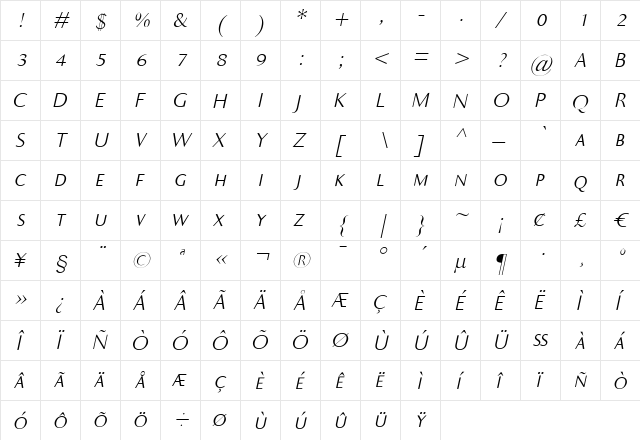
Ela Sans Light Caps Italic
Italic · Gert Wiescher, Wiescher-Design, Munich, Germany, www.wiescher-design.de  ·
Design Context for Ela Sans Light Caps Typeface
Ela Sans Light Caps is a composed and adaptable typeface that performs quietly and consistently across a wide range of design contexts. The dynamic lean of this cut emphasises speed and emphasis in any layout. Its slender proportions lend an understated elegance to any composition.